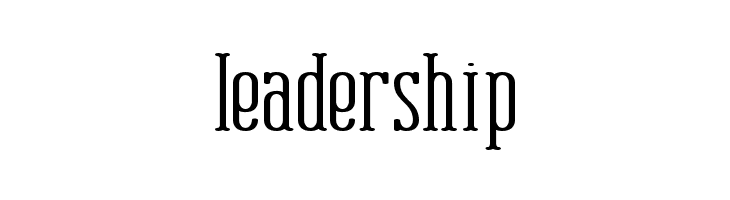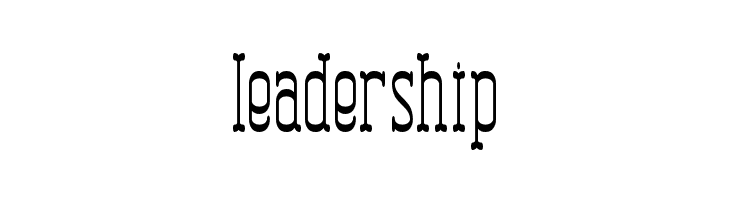
A bold, dynamic font with a slant and sharp serifs, ideal for impactful designs.
A bold, angular serif font with a vintage flair and dynamic presence.
A decorative serif font with elongated serifs and a tall, narrow structure.
A tall, playful font with rounded terminals and a whimsical style.
A tall, narrow font with subtle serifs and a modern yet classic style.
A bold, geometric font with a modern, digital aesthetic.
A bold, three-dimensional font with a shadow effect, offering a modern and striking appearance.
A bold, geometric font with dynamic striped patterns on uppercase letters.
A bold, modern font with geometric shapes and dynamic patterned elements.
A bold, geometric font with high contrast and a futuristic style.
A casual, handwritten font with smooth, fluid strokes and a playful appearance.
A playful, cursive font with a romantic, handwritten style.
A dripping, eerie font perfect for horror-themed designs.
A bold, distressed font with a hand-drawn, energetic style.
A playful, casual handwritten font with smooth, flowing strokes.
Playful, tall handwritten font with a whimsical style.
A bold, italic font with a filled, rounded style and modern appeal.
A bold, rounded font with filled interiors and distinct outlines.
Bold, rounded font with a 3D effect and italic slant.
A bold, distressed font with a hand-painted, edgy style.
A bold, brush-stroke font with a dynamic and chaotic style.
A bold, rounded font with a 3D effect and playful style.
Bold, expressive handwritten font.
A dynamic and elegant script font with a handwritten appearance.
A dynamic and elegant script font with flowing cursive letterforms.
A bold, flowing script font with a dynamic, handwritten style.
A bold, flowing script font with dynamic curves and elegant flair.
A bold, outlined font with a playful, three-dimensional effect.
A bold, angular, and edgy font with a hand-crafted appearance.
A playful, bold font with a lively, cartoonish style and hand-drawn feel.
A bold, playful font with a hand-drawn, textured style.
A bold, hand-drawn font with a playful, outlined style.
A playful, sketch-style font with bold outlines and textured interiors.
A playful, cartoonish font with bold, exaggerated characters and whimsical elements.
A playful, hand-drawn font with bold, irregular outlines.